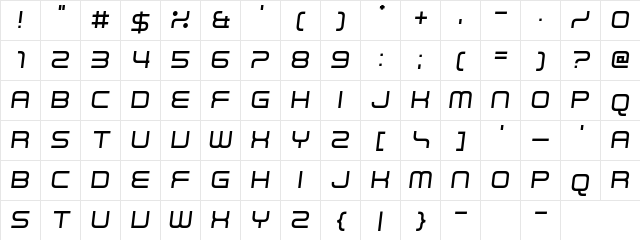
Read Wharf Regular
| Designer | Allison James |
Design Context for Read Wharf Typeface
Read Wharf takes a measured approach to typography — its balanced proportions and neutral character make it a reliable workhorse for both digital and print work.